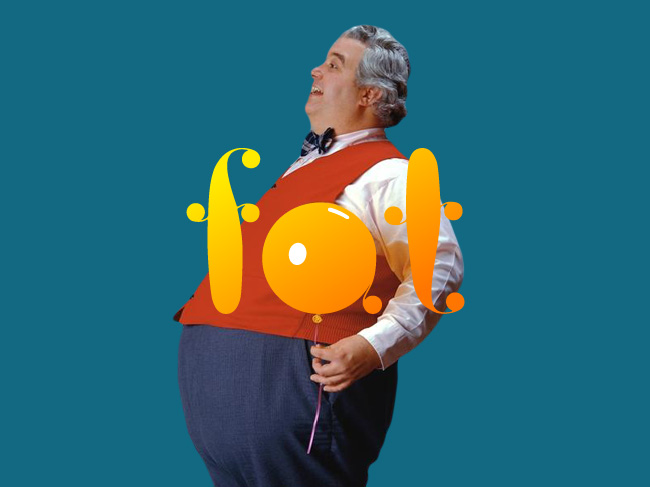
Preview and download FatC Font. Created by Aleksander Shevchuk in Fancy Groovy styles with 100% Free license.
One day I woke up and thought, why should not I make the font which used the perfect balance form with heavy black round and hair line, like Giambattista Bodoni. This script is the most perfect balance. My font is fully rounded, because I believe that this positive effect on eyesight. 2010, Copyright by Aleksander Shevchuk. URL: http://aleksandershevchuk.ru/#771408/FatC-Free-typeface |